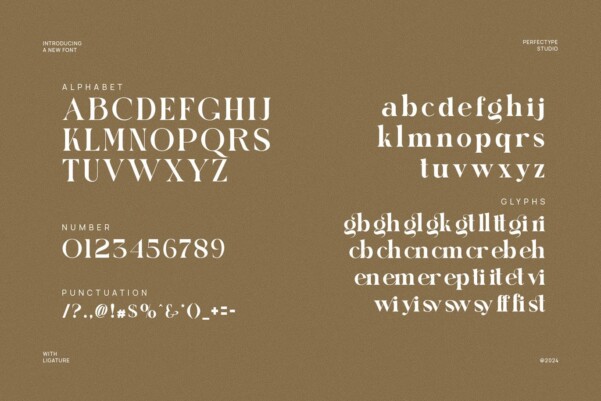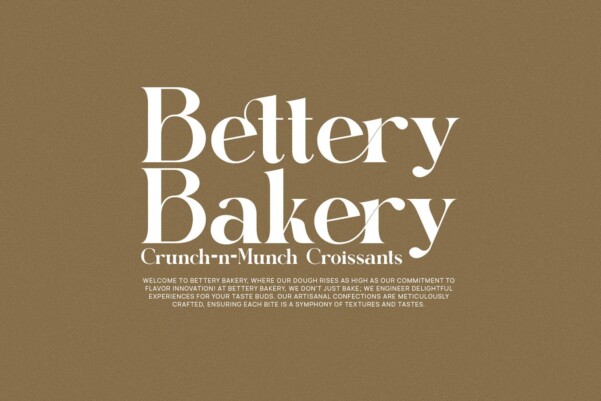
Sigko Font
Designer: Perfecttype_
Sigko Font, this is a very elegant and classy font for all branding and logo designs This type of serif font is made with elegance and luxury so it is very suitable for all your design uses. This type of font is very suitable for your various needs such as branding projects, logos, social media posts, advertisements, labels, product packaging, photography, wedding designs, watermarks, invitation product designs, stationery, and any project, created at a high level legibility.